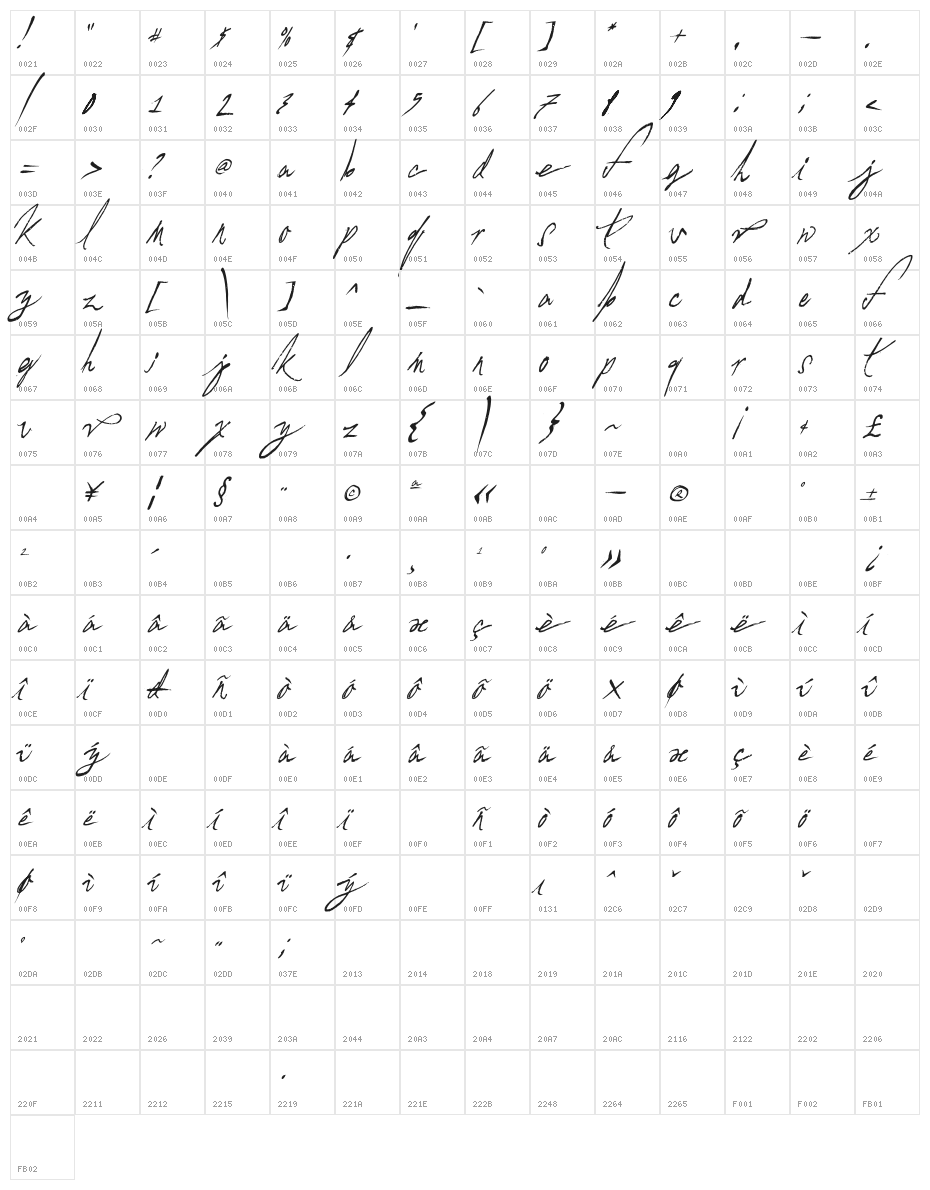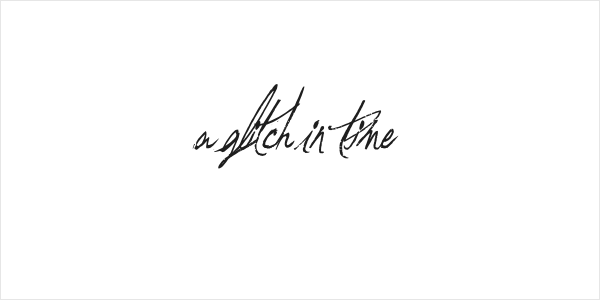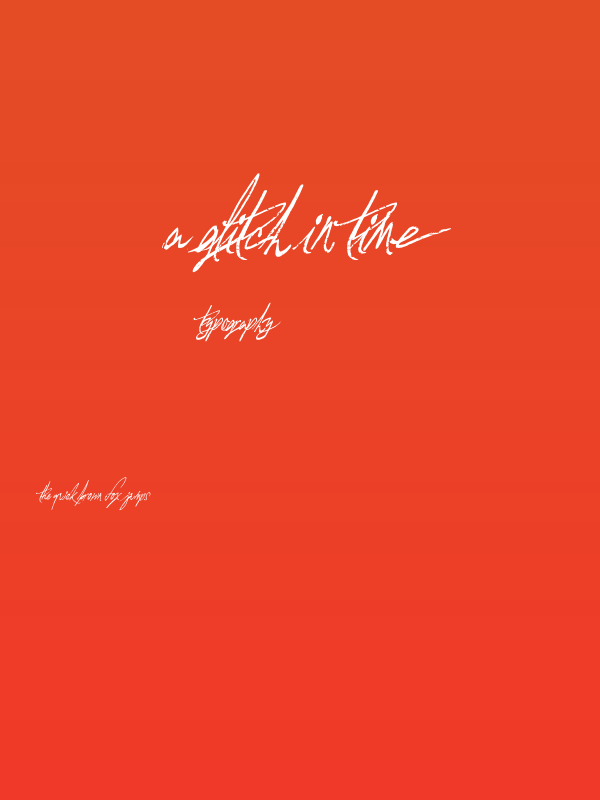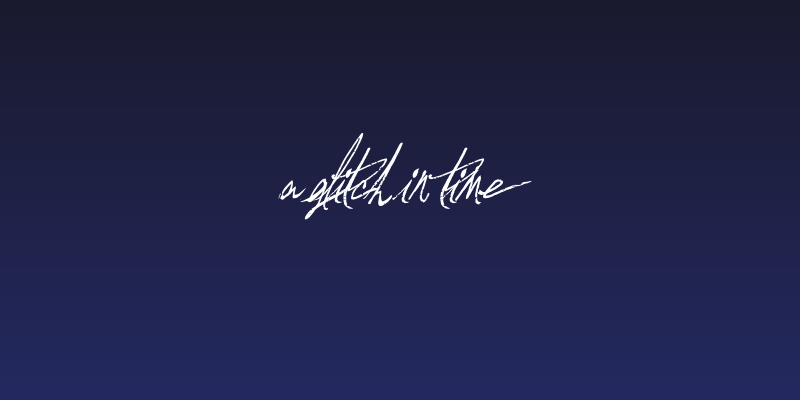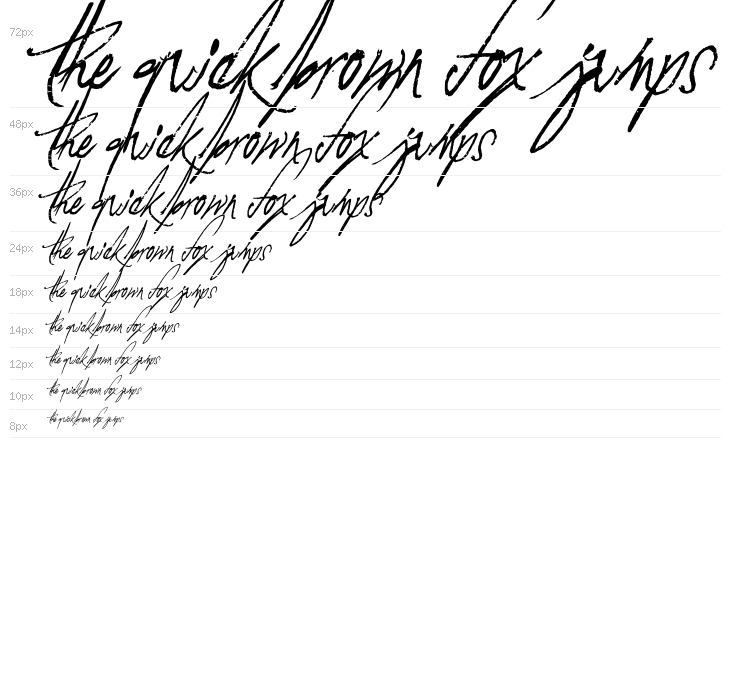
A Glitch In Time Font
| 分类 | Handwritten |
| 斜体 | Yes |
| 整体风格 | Modern, Experimental |
| 使用场景 | Logos, Posters, Artistic projects |
| 推荐项目 | Ideal for album covers, experimental art projects, edgy branding, and digital media that seeks to convey a sense of disruption or avant-garde aesthetics. |